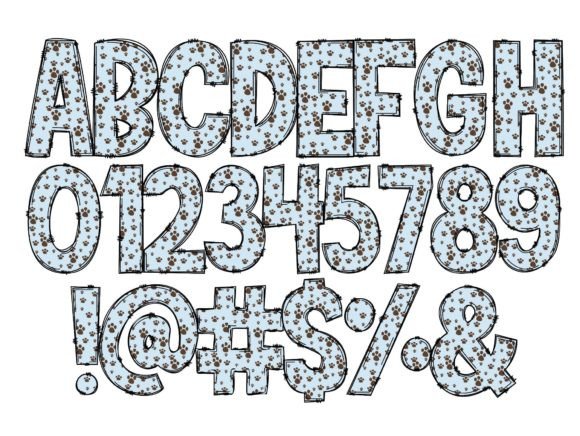
Introduction to Beautiful Cat Font
Beautiful Cat is an amazing display font.
It features cute characters and beautiful cat doodles Take your designs to the next level with Beautiful Cat.
Key Features of Beautiful Cat Font